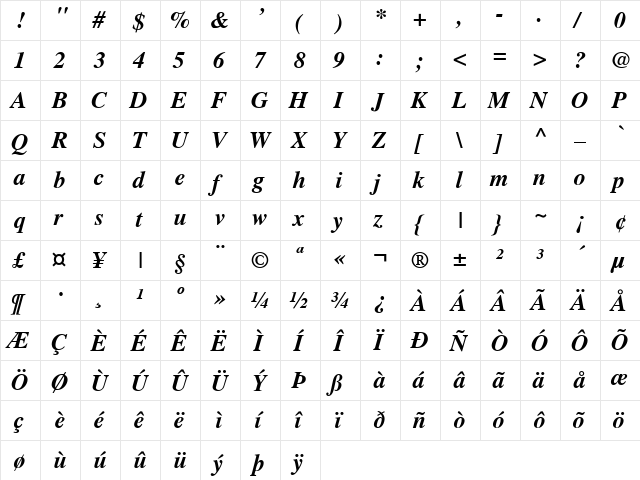
Toronto Bold Italic
Design Context for Toronto Typeface
Toronto takes a measured approach to typography — its balanced proportions and neutral character make it a reliable workhorse for both digital and print work. Its italic angle brings a sense of urgency and motion to the letterforms. Its bold stroke weight gives it real presence on the page.
Pro Tip: Use Toronto for emphasis, pull quotes, and subheadings where its slanted energy can add rhythm to the layout.